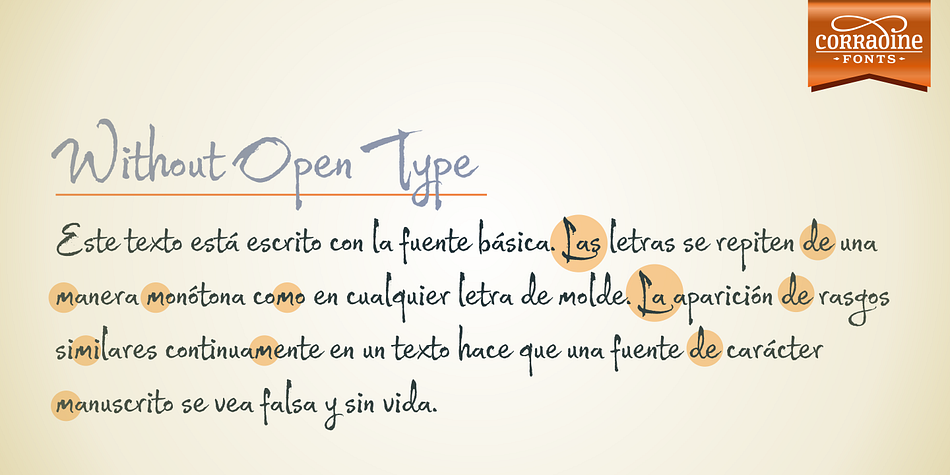
Wild Pen OT
Designed by Manuel Corradine, Wild Pen OT is a brush display, hand display and script font published by Corradine Fonts.
Wild Pen is a handwritten font written with an experimental pen made from recycled plastic bottle. Its spontaneous strokes are very free and allow presence of drops and blots of ink. The complete family consists of five different fonts which have the same feeling and allow mixing them to obtain a lifelike handwriting text.
Open Type users may choice Wild Pen OT, which includes not just the five basic sets but also contains many additional alternative characters and some discretionary ligatures. Wild Pen OT is judiciously programmed to mix randomly the five basic sets and improve the texts with the additional alternative characters which have in some cases up to ten additional letters for each character. Wild Pen OT contains almost 1200 glyphs to cover many Latin languages (Western and Central European).
If you don’t need an Open Type version (because you don’t have an Open Type compatible application or you just don’t know how to apply the Open Type features), you can purchase the plain versions of Wild Pen, then you must to change manually the letters by switching the five fonts.